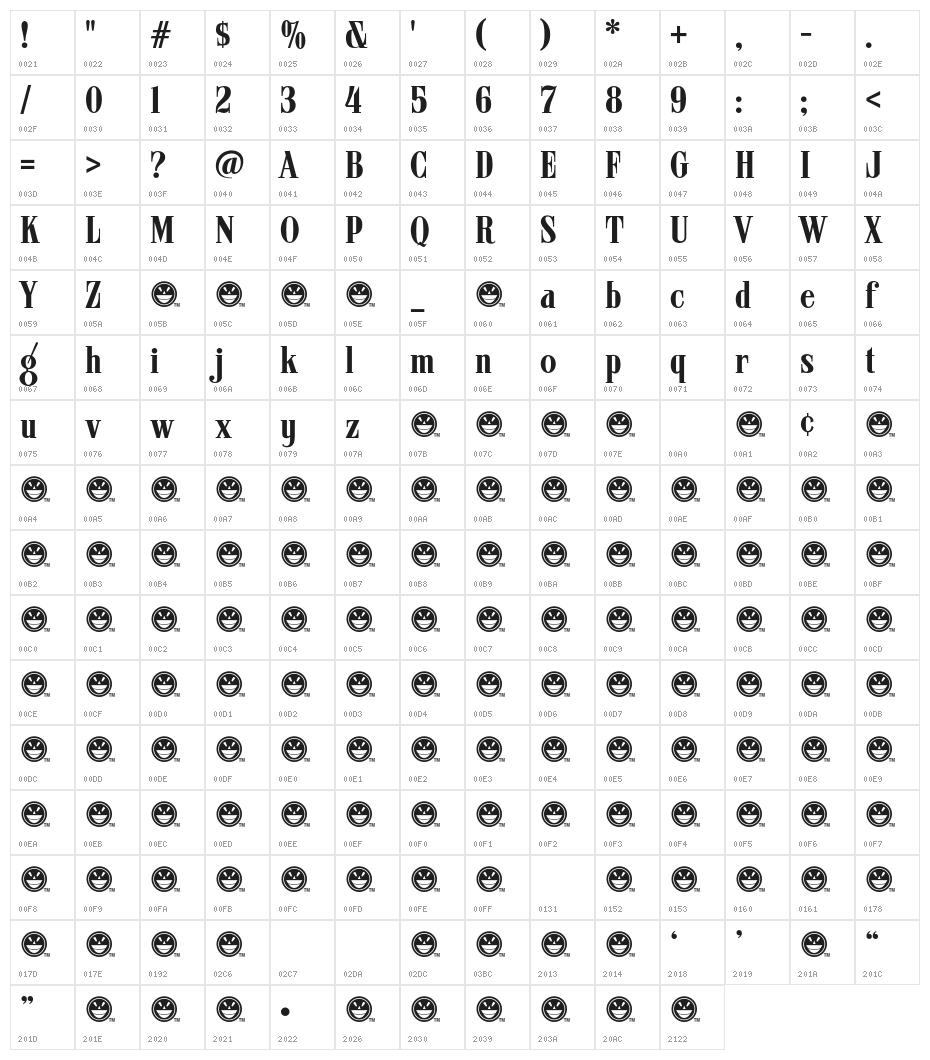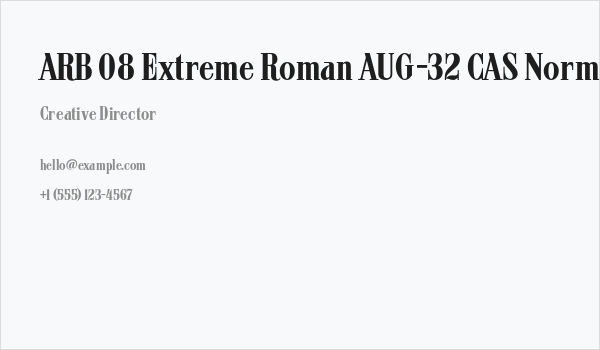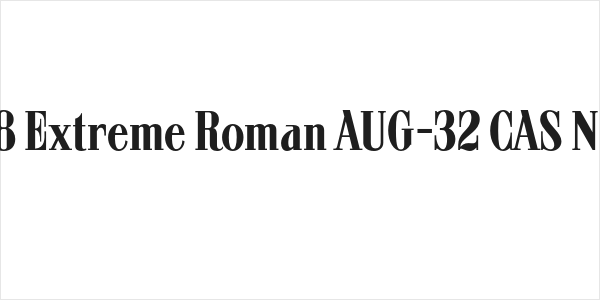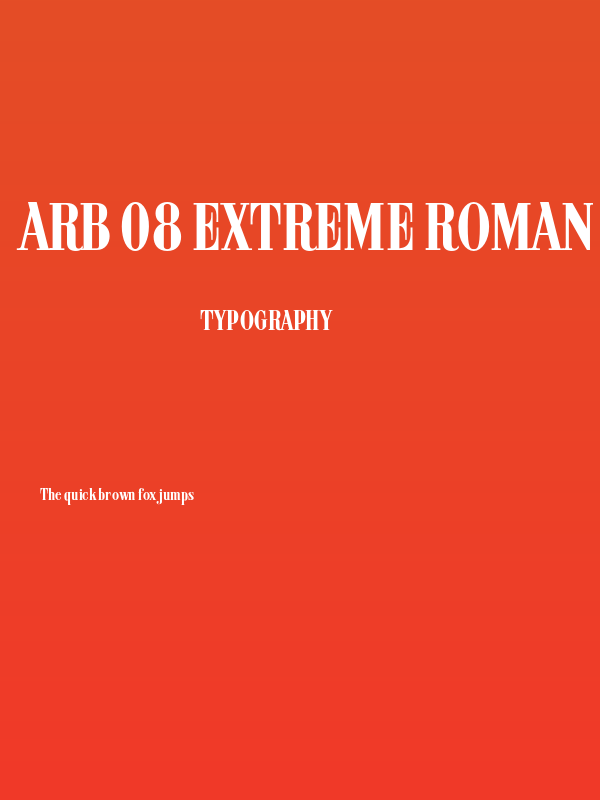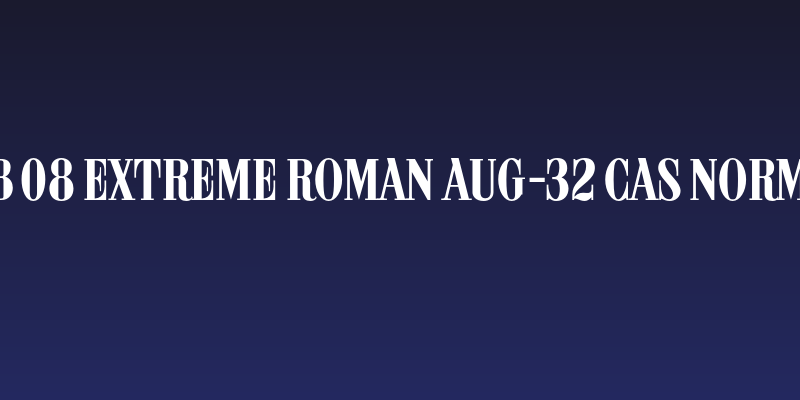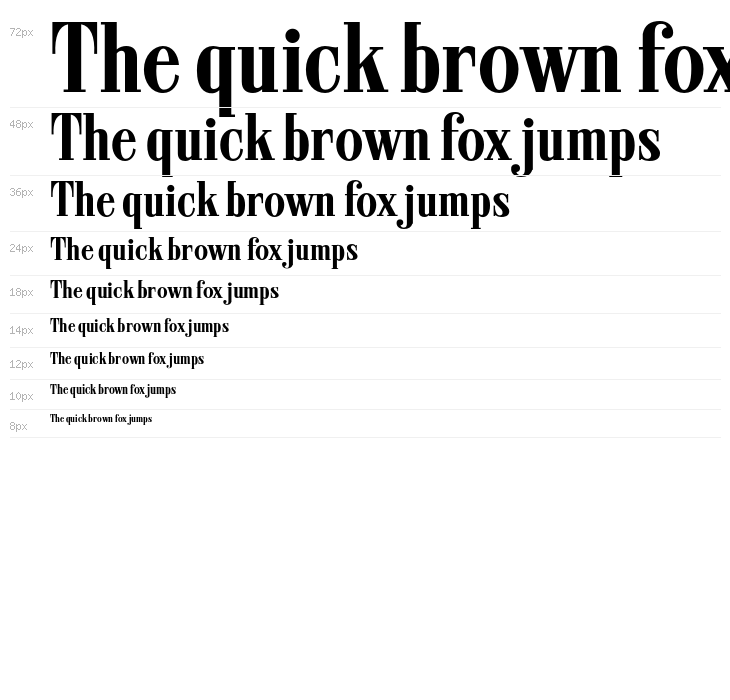
ARB 08 Extreme Roman AUG-32 CAS Normal Font
ARB 08 Extreme Roman AUG-32 CAS Normal Description
This font features a bold and striking design with high contrast between thick and thin strokes, giving it a dramatic and impactful appearance. The serifs are pronounced and sharp, adding a touch of elegance and sophistication. The uppercase letters are tall and commanding, while the lowercase letters maintain a consistent style with slightly rounded edges. The numerals are clear and distinct, ensuring readability. Special characters are designed with the same boldness, making them stand out effectively. Overall, this font exudes a classic yet modern feel, suitable for making a strong visual statement.
Overall StyleClassic
Proposed ProjectsIdeal for headlines, posters, branding, and editorial design where a strong, impactful presence is desired.